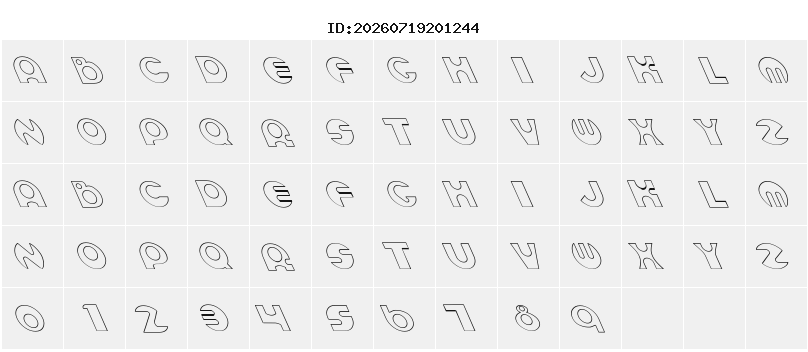
• Font Name: Espheres Hollow Lefty
• Full Font Name: Espheres Hollow Lefty
About Espheres Hollow Lefty.ttf
Espheres Hollow Lefty.ttf is a modern, elegant sans-serif font designed for ultimate readability and visual harmony. Perfect for branding, headlines, web design, and print materials.